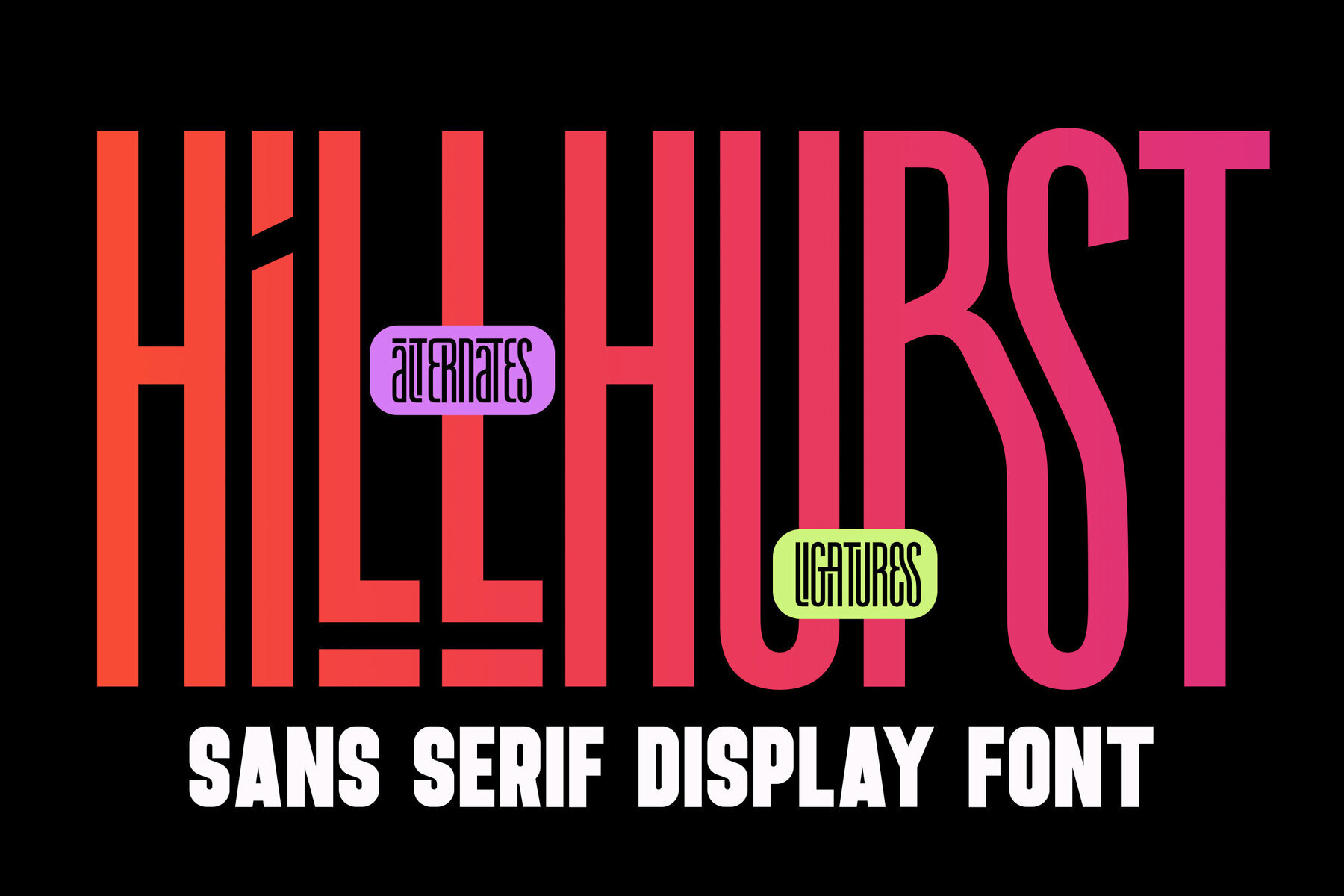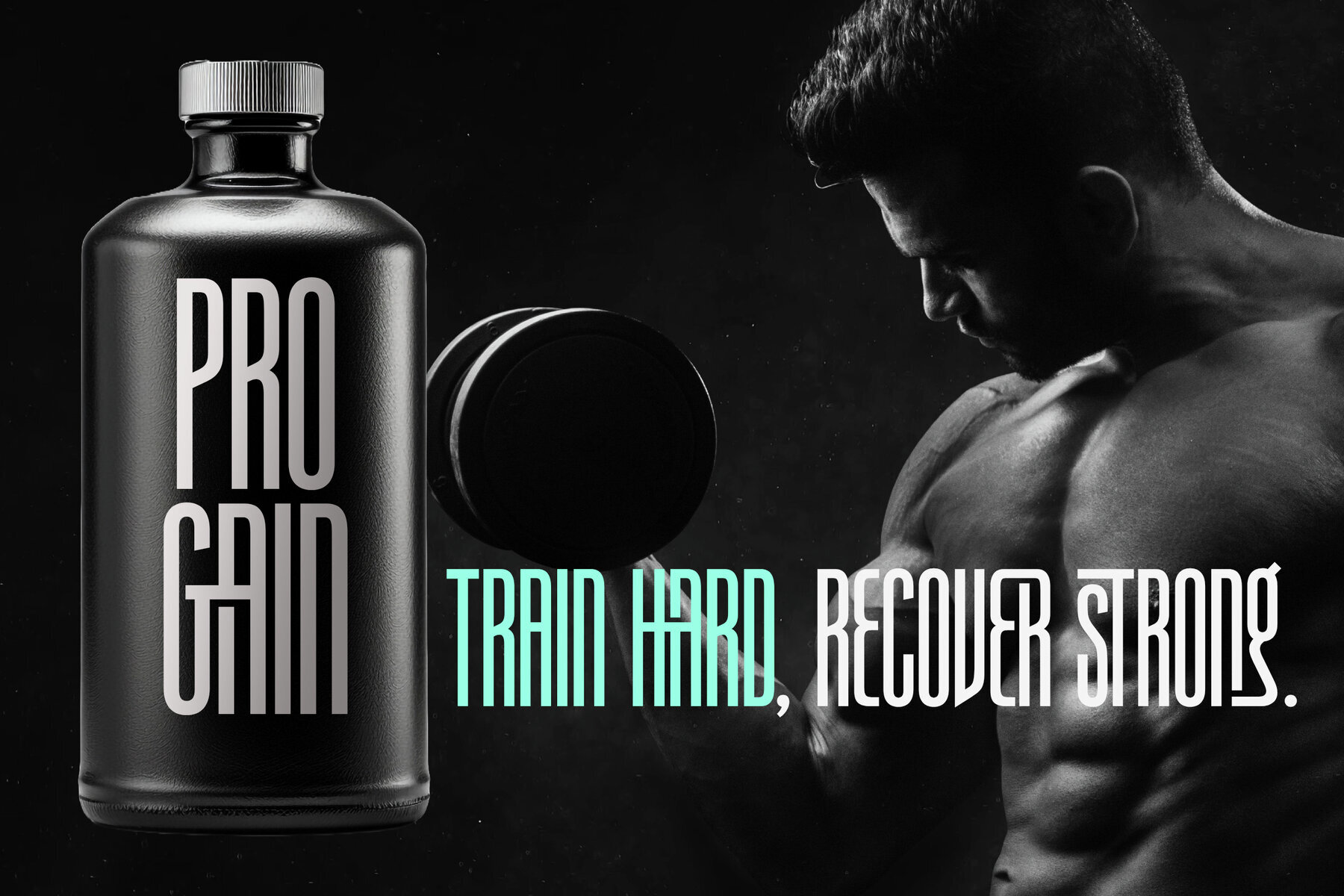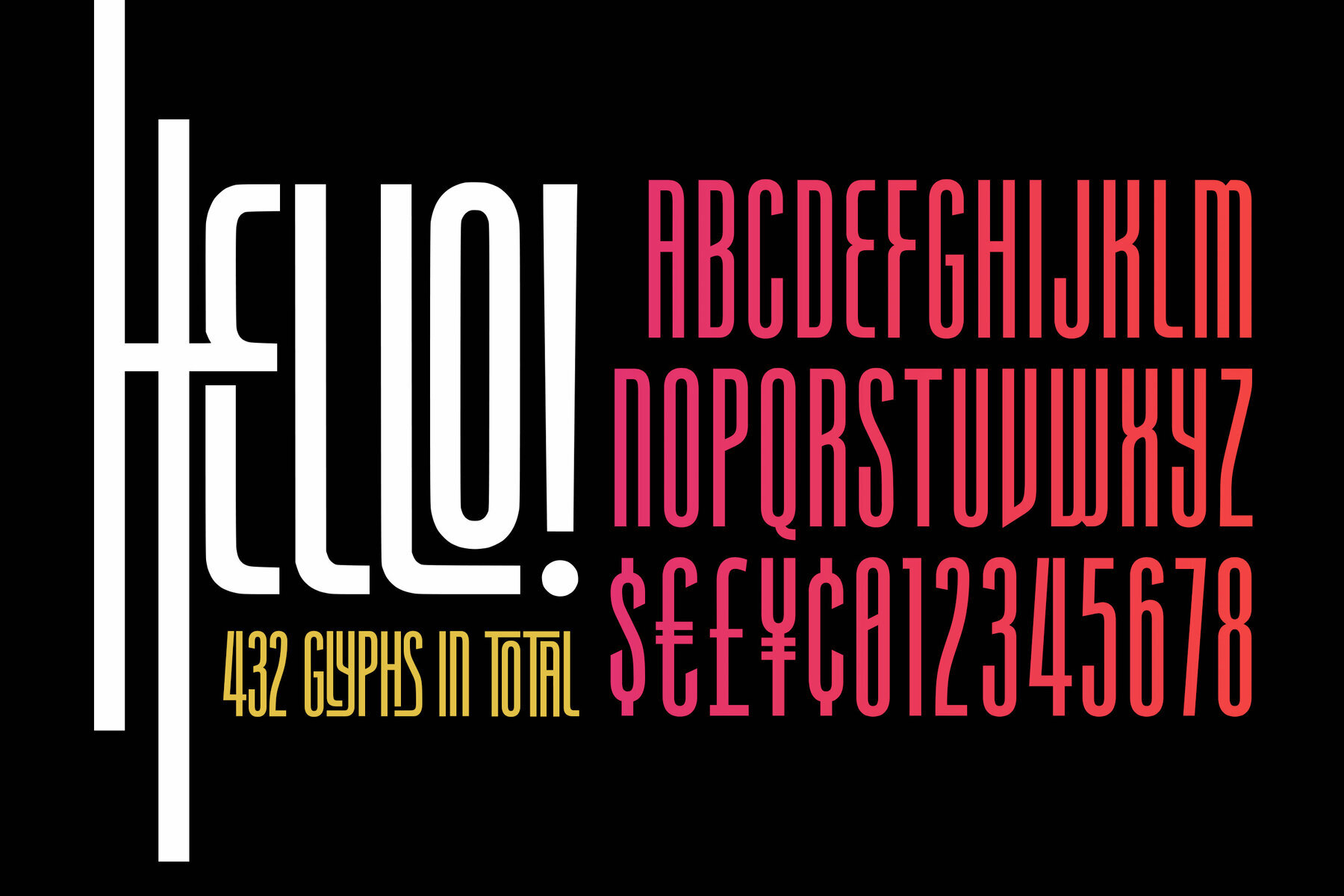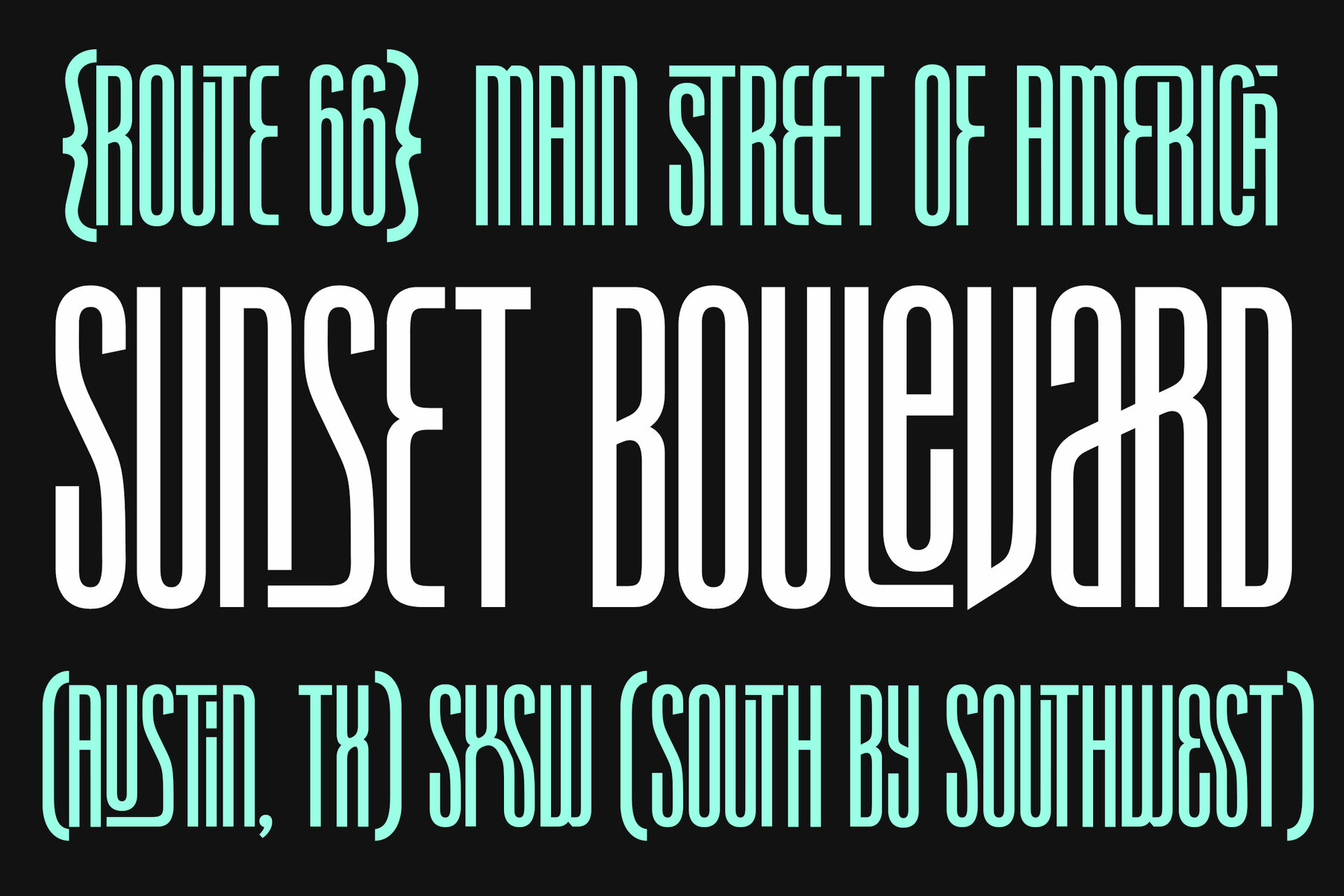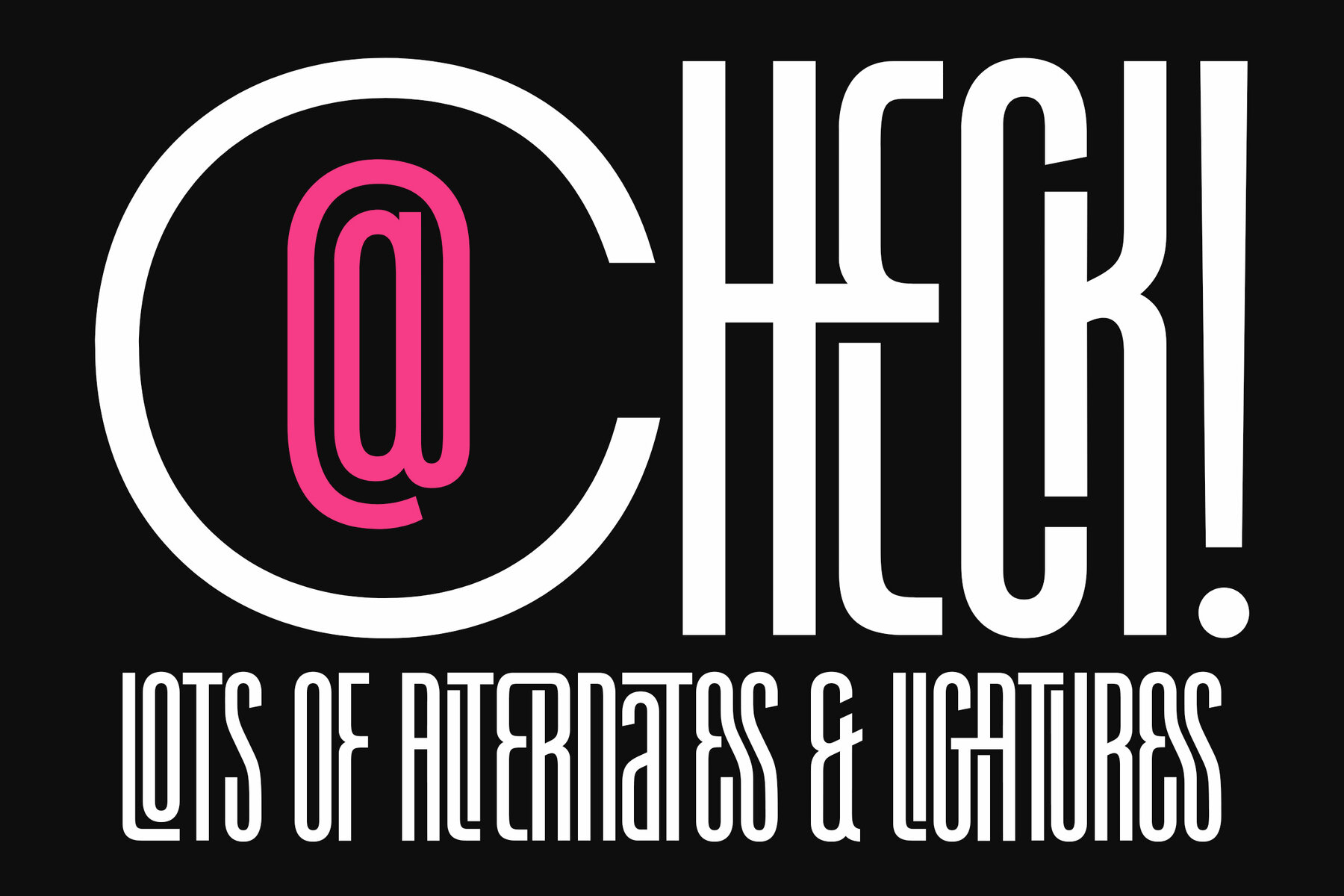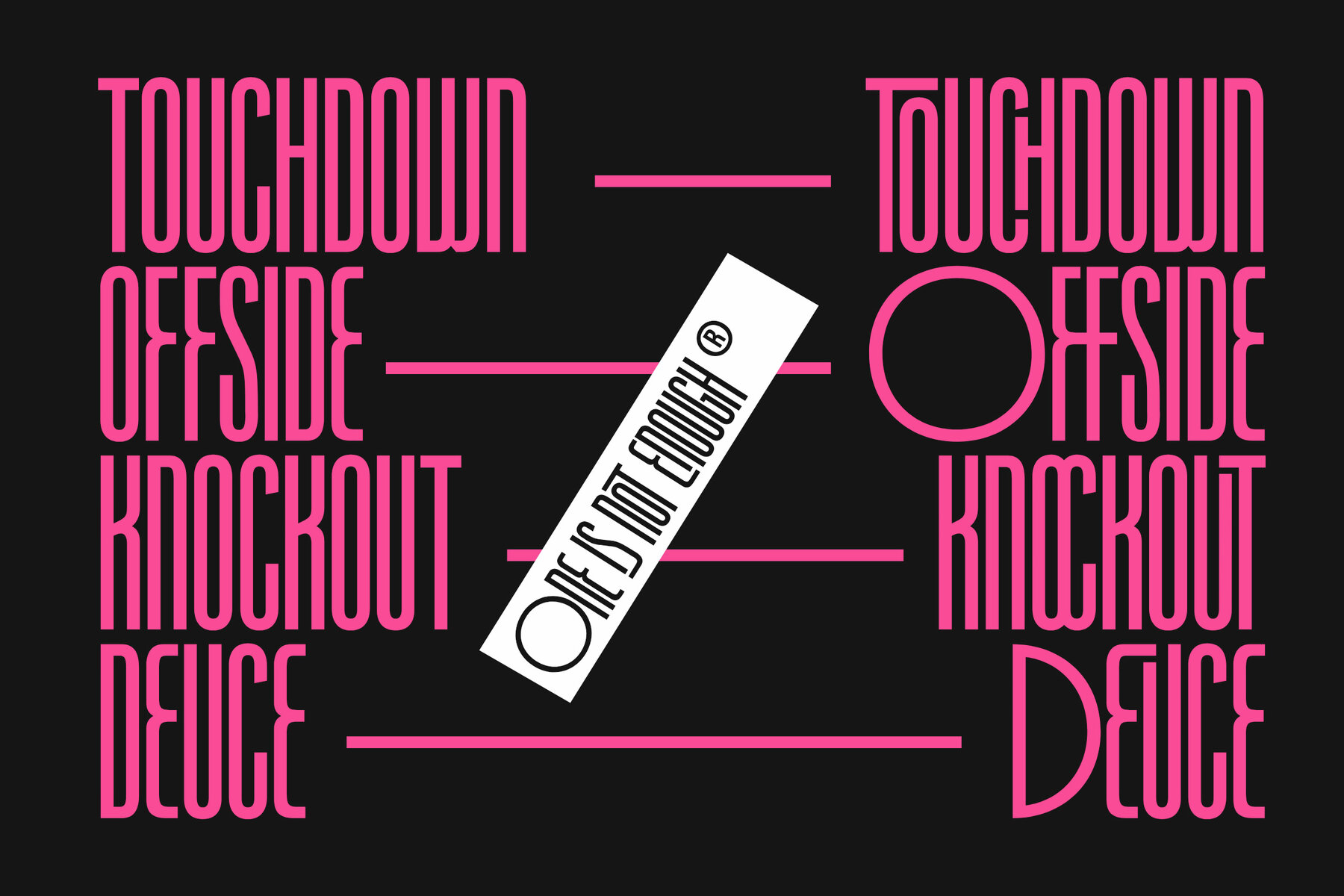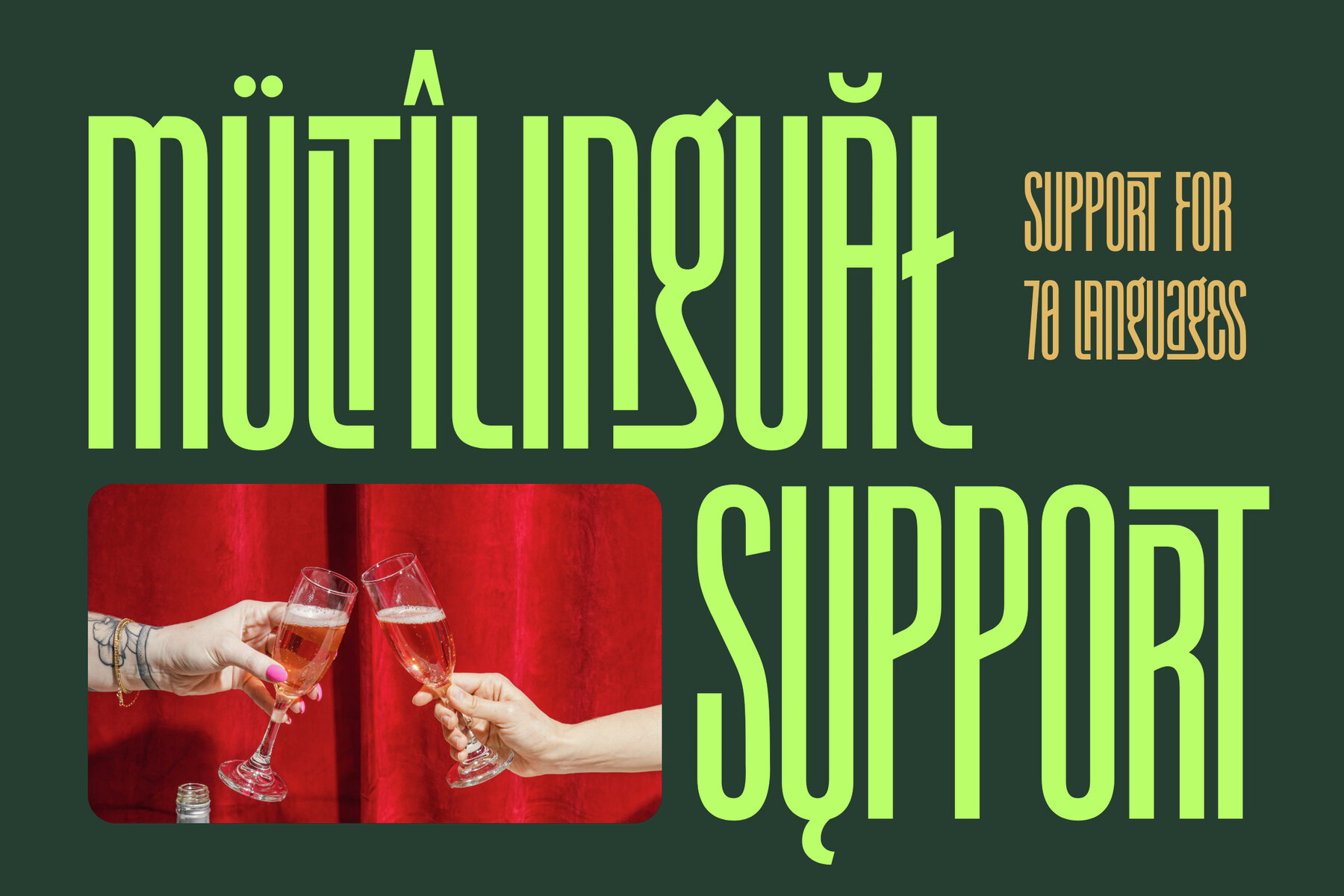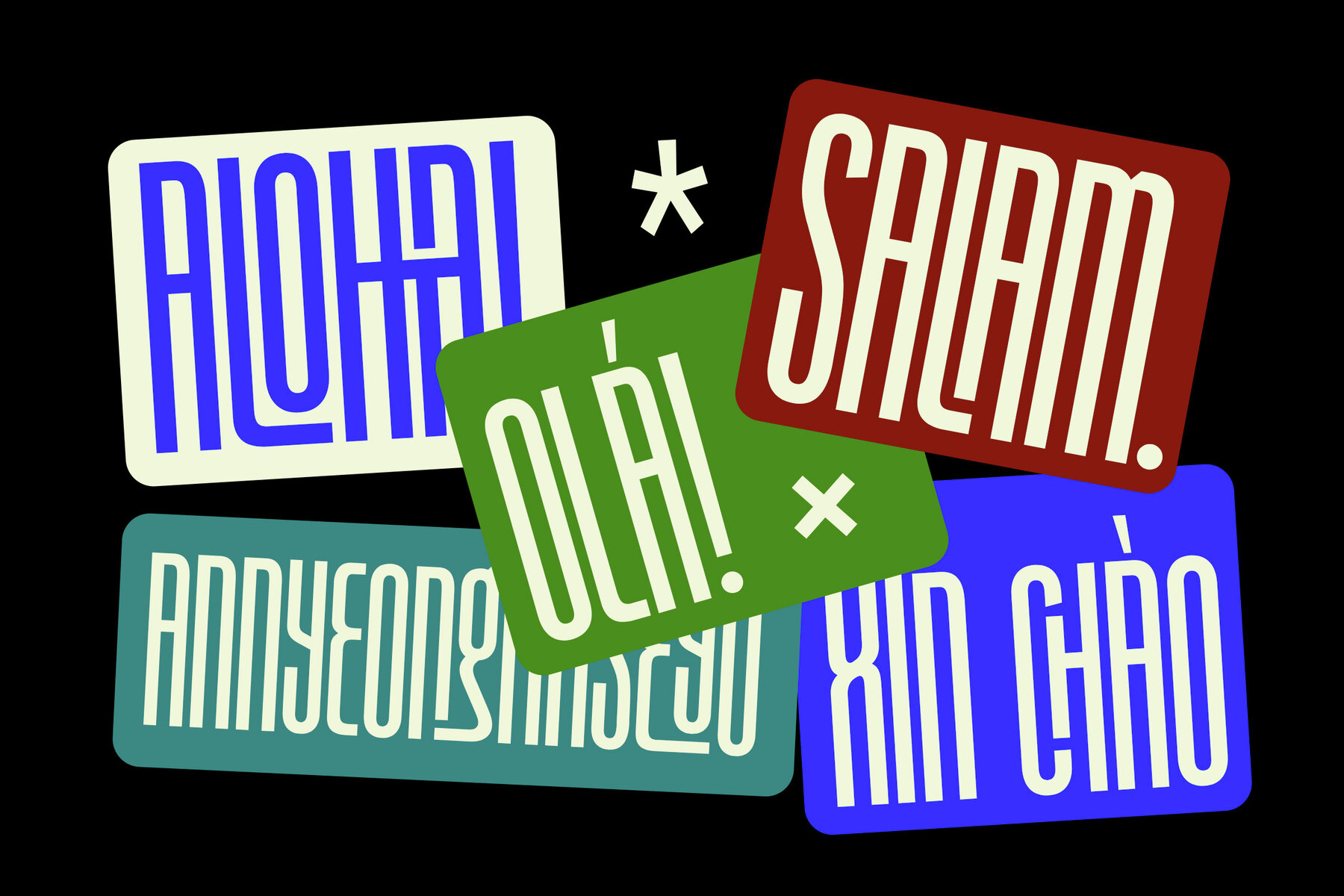
Hillhurst Font
Hillhurst Regular
This font features a robust and contemporary sans-serif design with bold, uniform strokes and geometric form. It conveys strength and modernity, making it ideal for impactful headlines, posters, or any application where a strong visual statement is needed. The minimalistic and clean nature of this typeface ensures readability at larger sizes, which aligns well with modern design aesthetics.